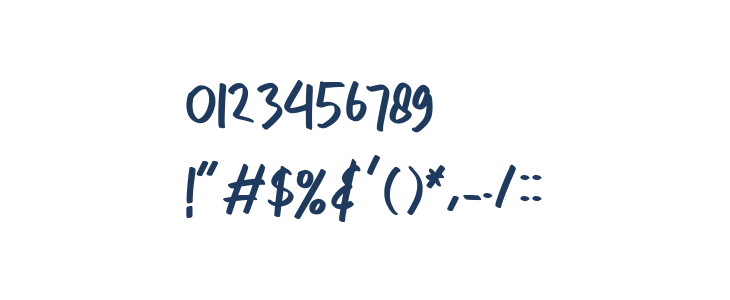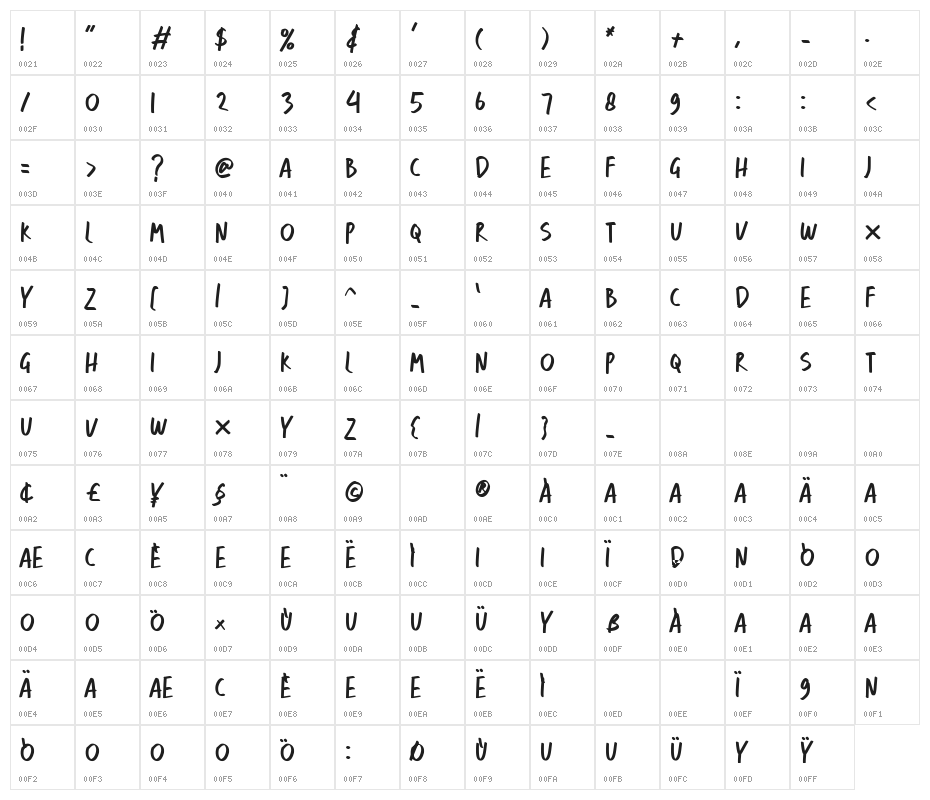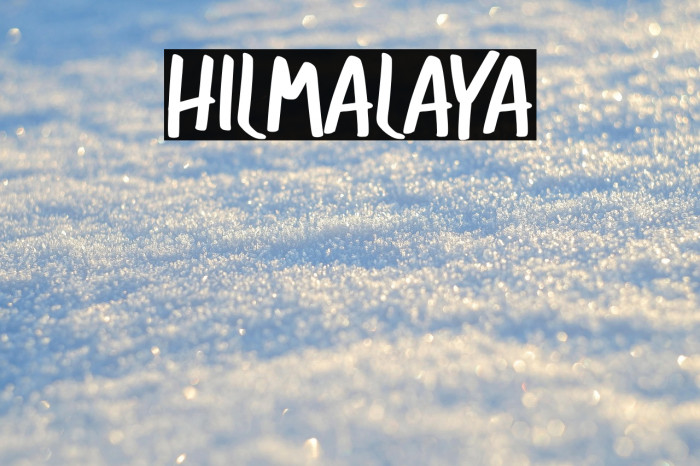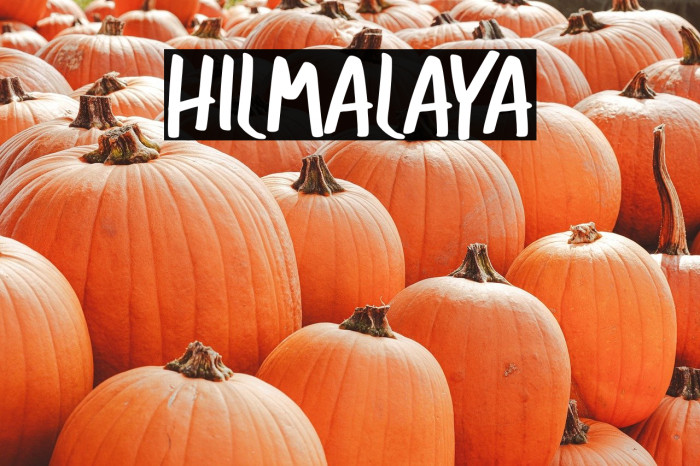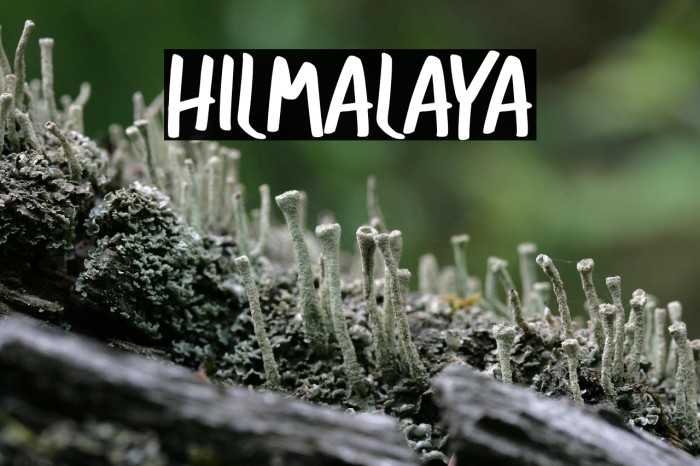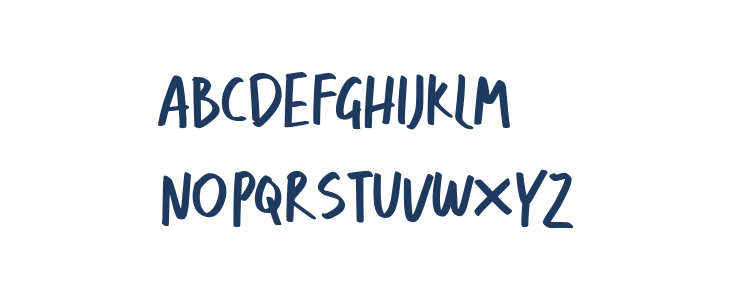
HILMALAYA Font
HILMALAYA Description
This font features a bold and playful handwritten style, characterized by its thick strokes and casual appearance. The letters are slightly slanted, giving a dynamic and energetic feel. The uppercase and lowercase letters maintain a consistent flow, while the numbers and special characters complement the overall style. The font's informal and friendly nature makes it suitable for creative projects that require a personal touch. Its legibility is maintained despite the playful design, making it versatile for various applications.
| Overall Style | Playful, Casual |
| Use Case | Logos, Headlines, Social Media |
| Proposed Projects | Ideal for greeting cards, children's books, playful branding, and social media graphics. |